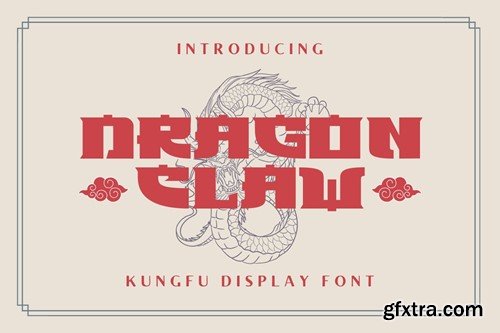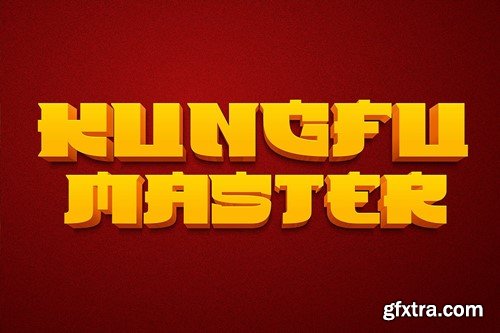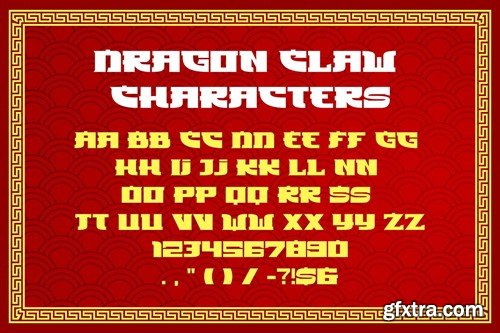
Dragon Claw - Kungfu Display Font
Dragon Claw - Kungfu Display Font Dragon Claw font is a powerful tool for designers and artists looking to capture the essence of Kung Fu in their creative projects. Its bold and dynamic style, combined with its rich cultural references, makes it a versatile choice for a variety of applications. The zip file is include: